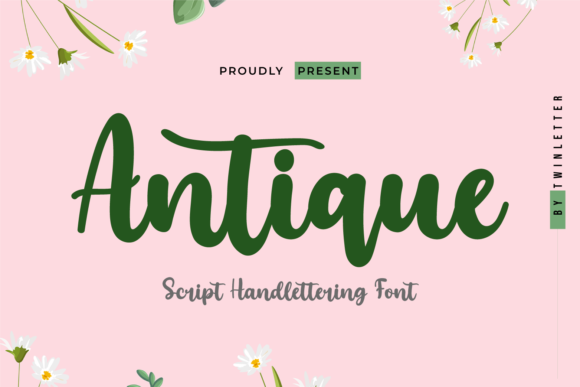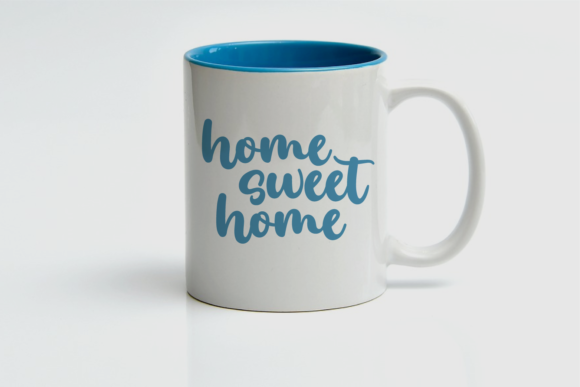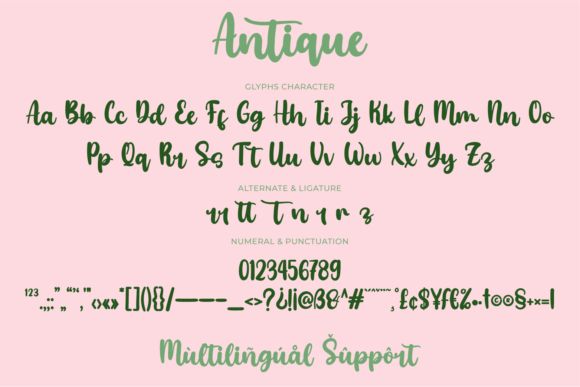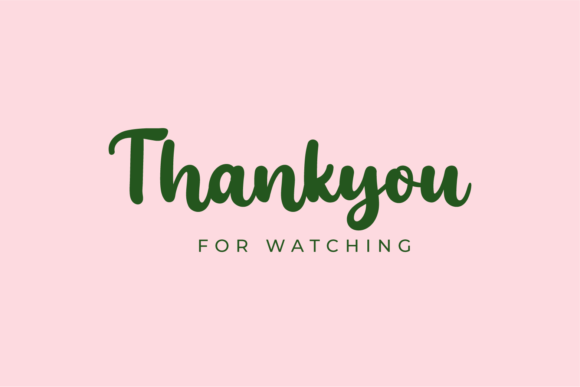
About Antique Font
Antique is a handwritten script font with a pretty and cute feel. It has a charming style and it will add a joyful touch to your designs. Whether you’re looking for fonts for Instagram or calligraphy scripts for DIY projects, Antique will turn any creative idea into a true piece of art!